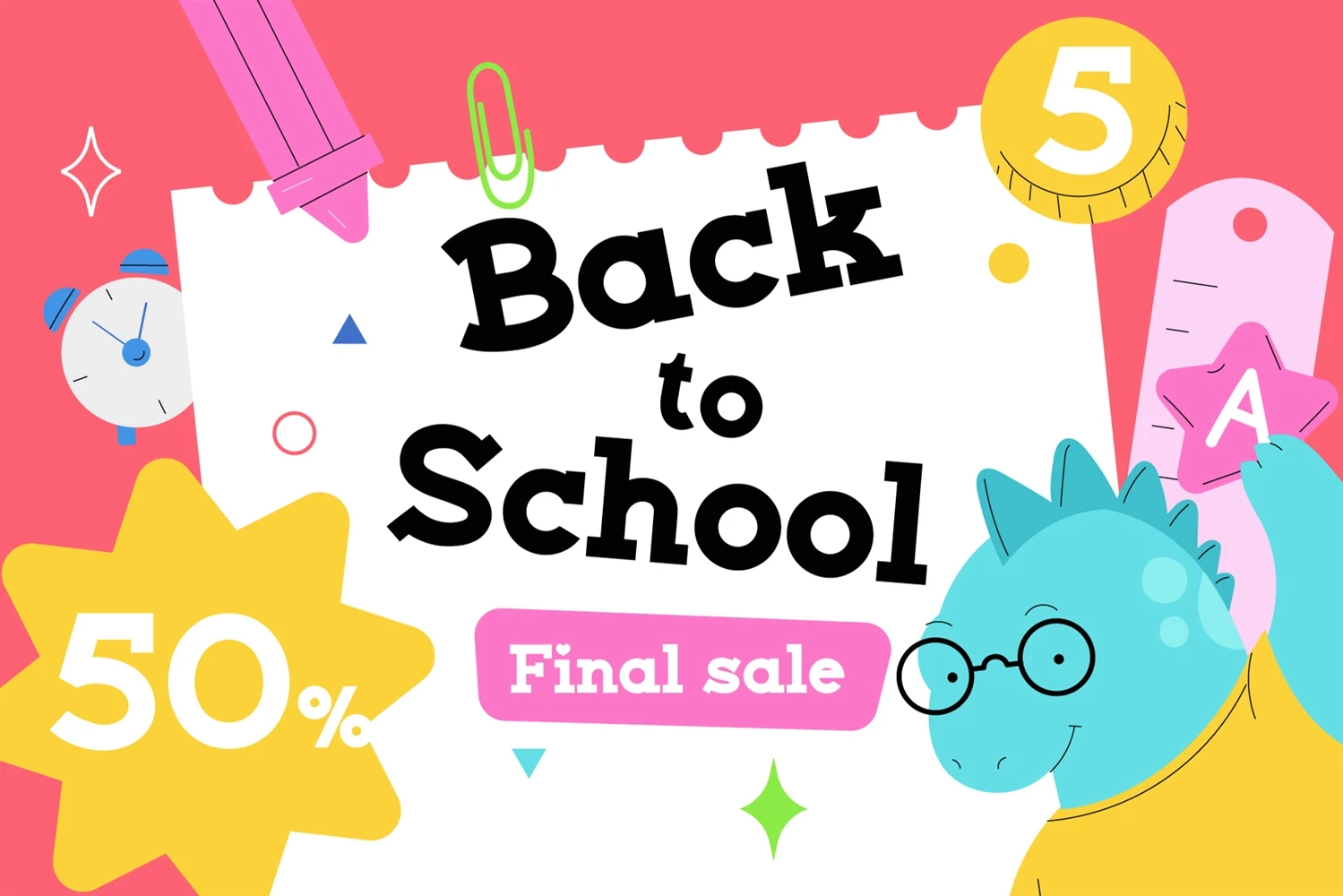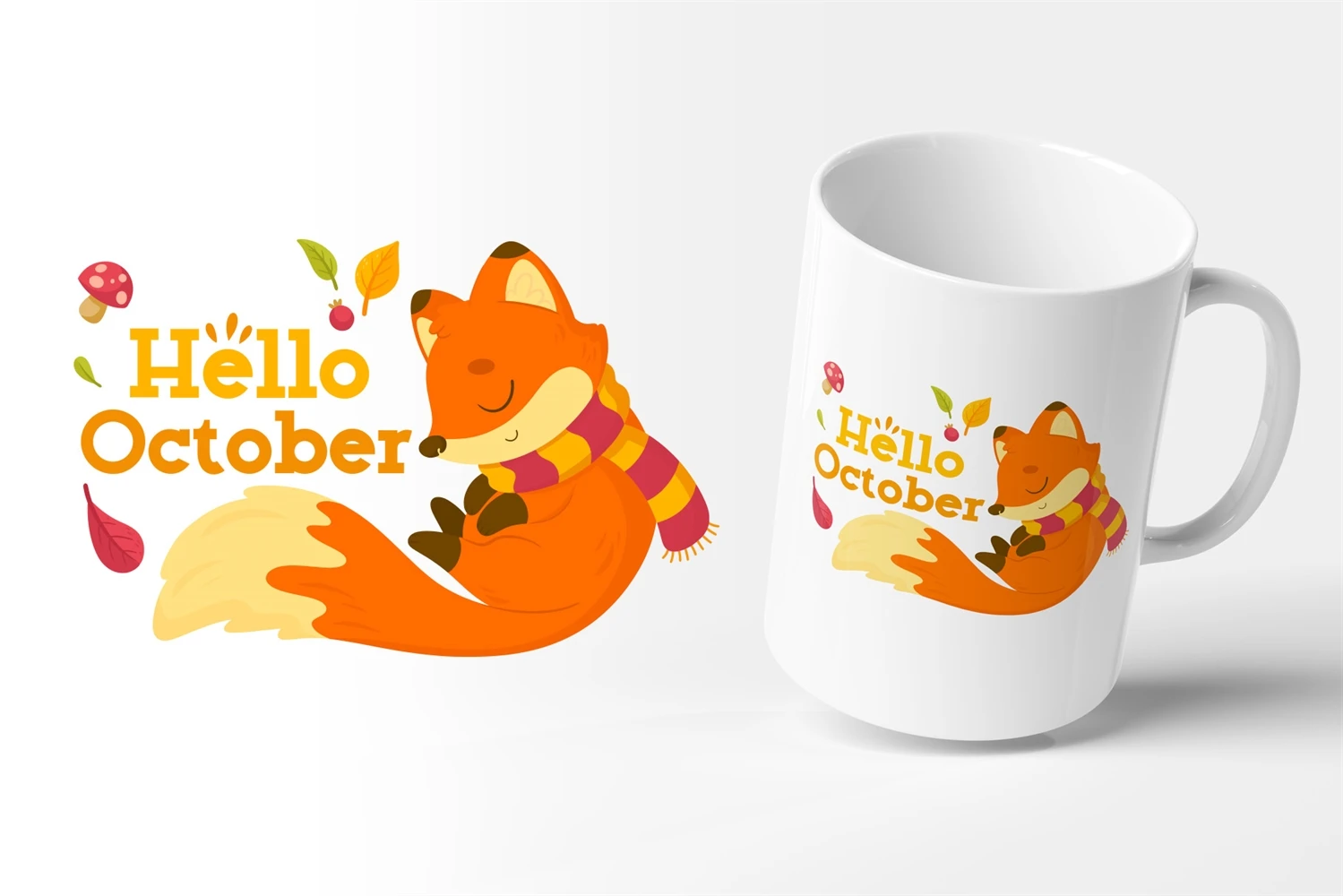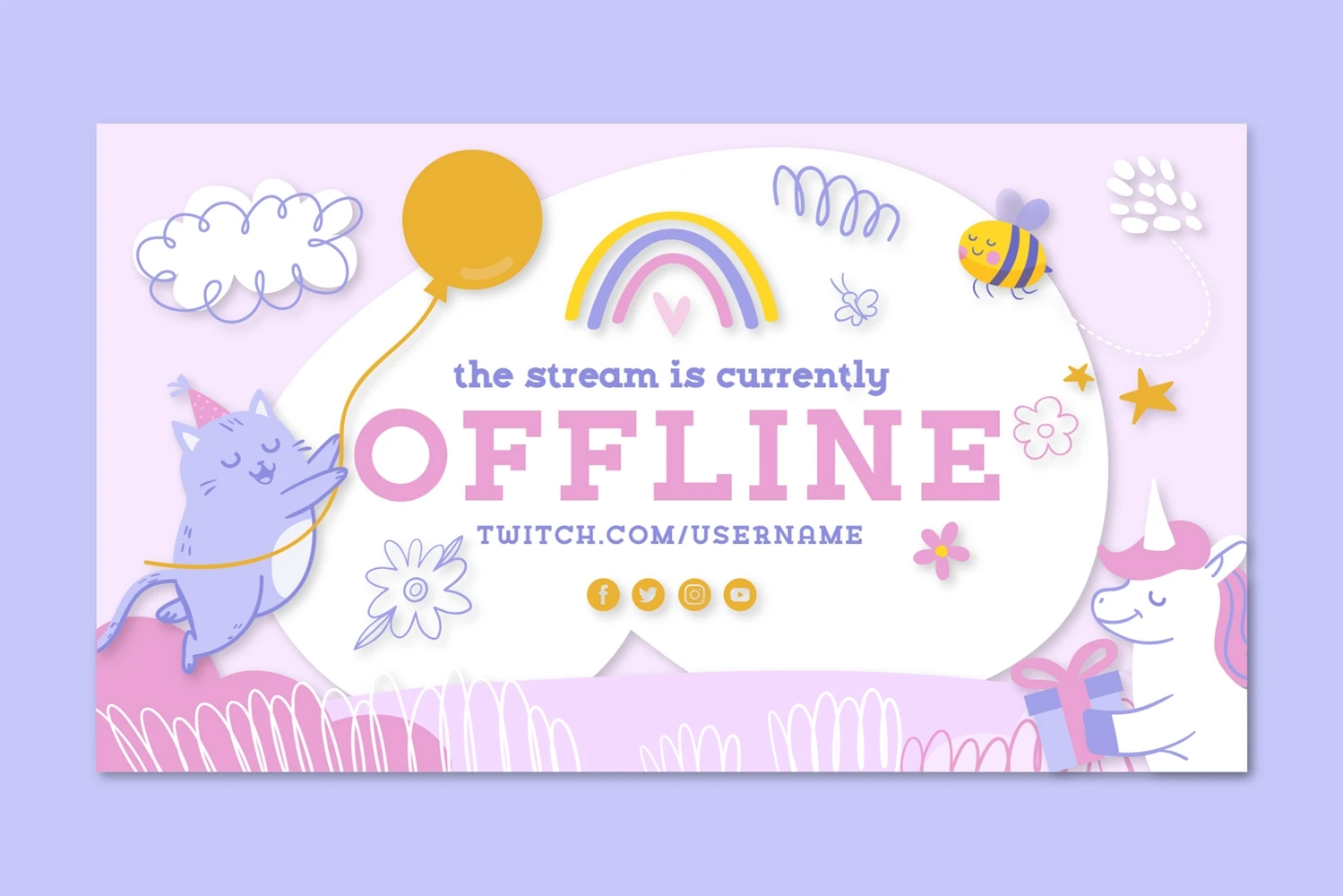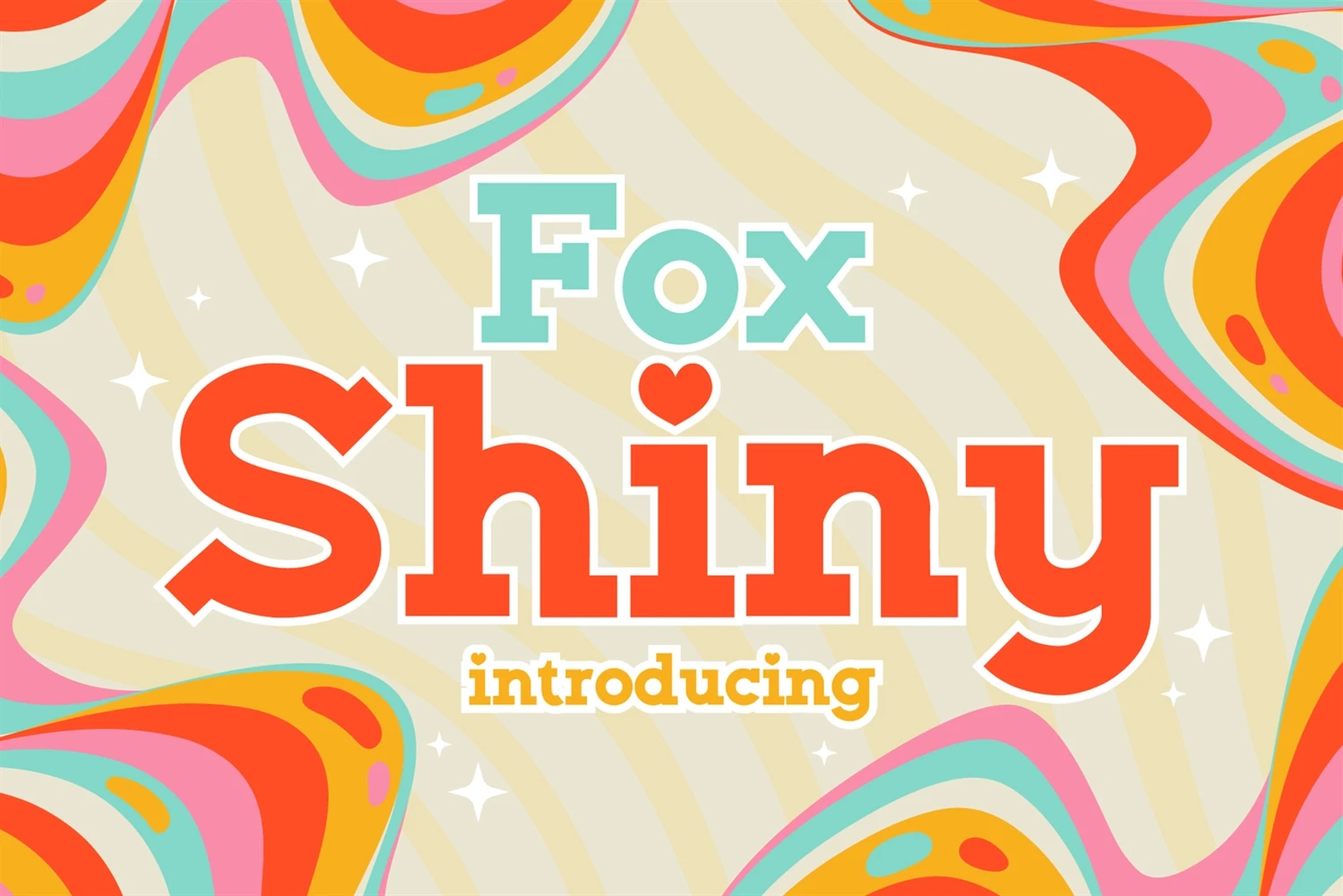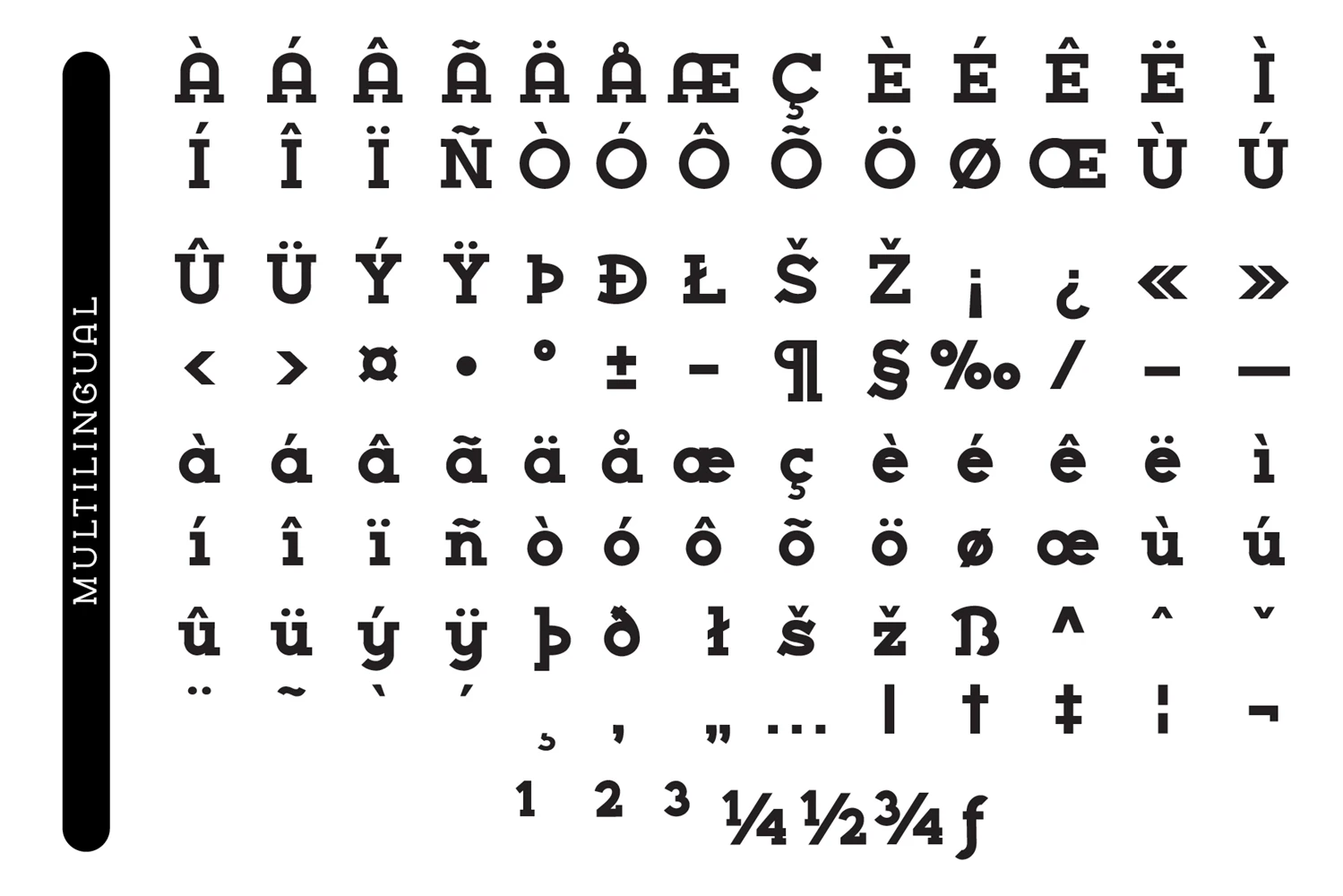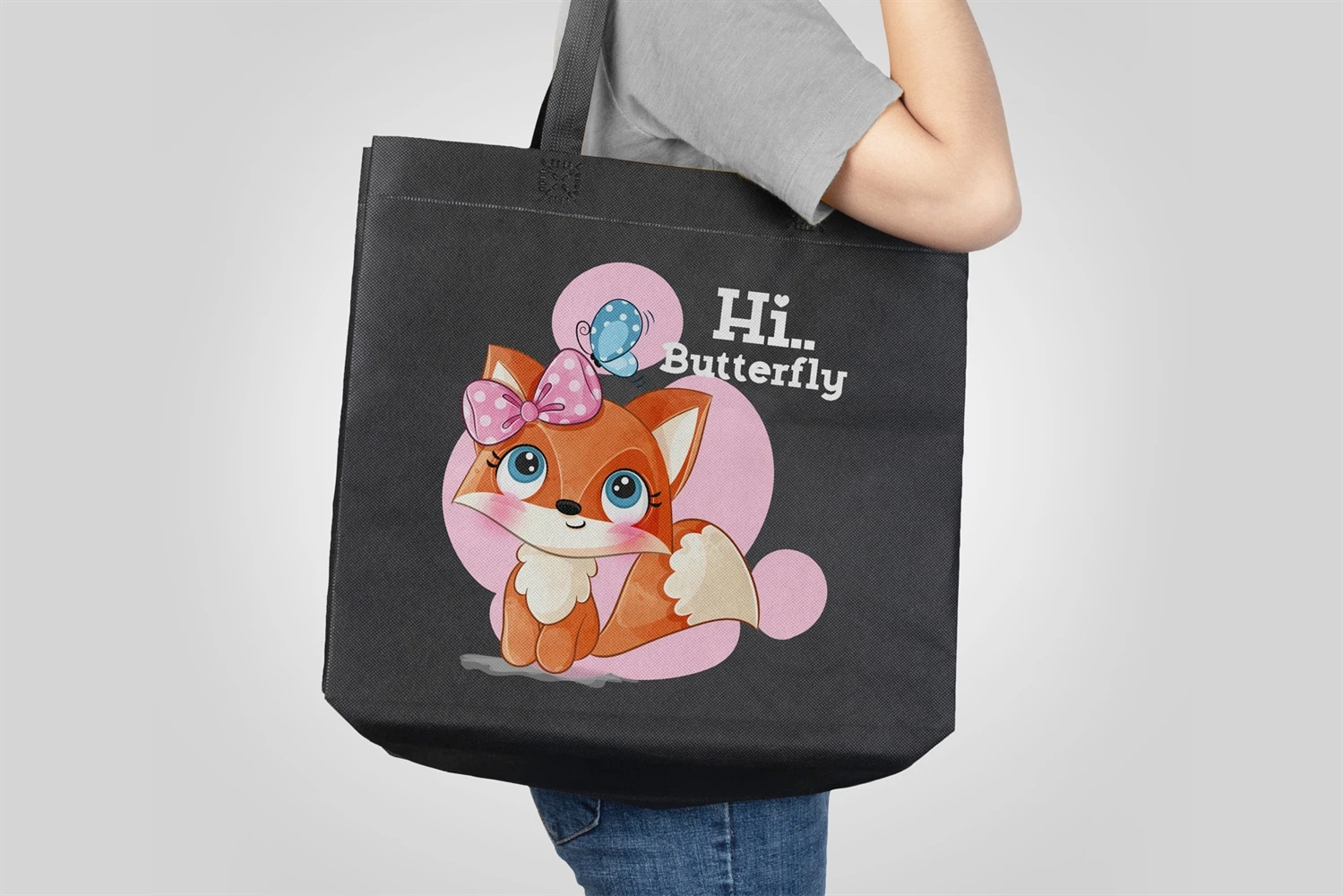
Fox Shiny is a simple, cute, and fun slab serif font. This typeface is perfect for elegant and vintage logos, book or movie title designs, fashion brands, magazines, clothes, lettering, quotes, etc. Add this font to your favorite creative ideas and notice how it makes them come alive!